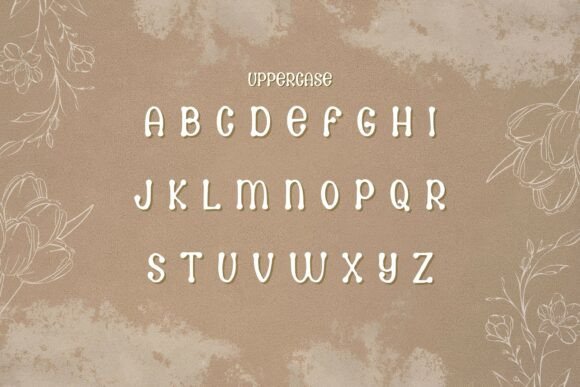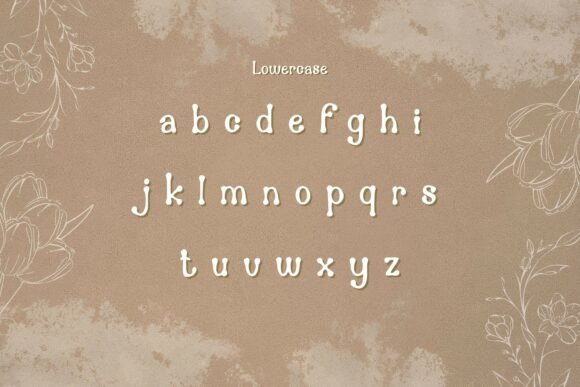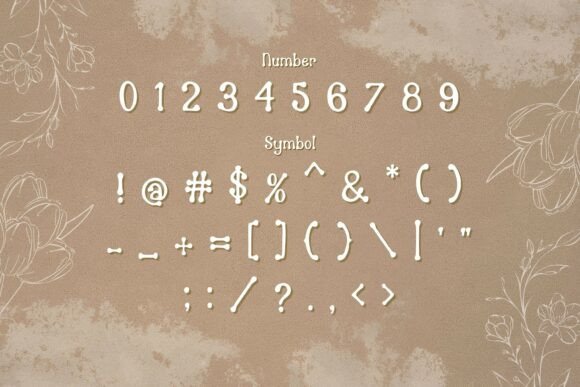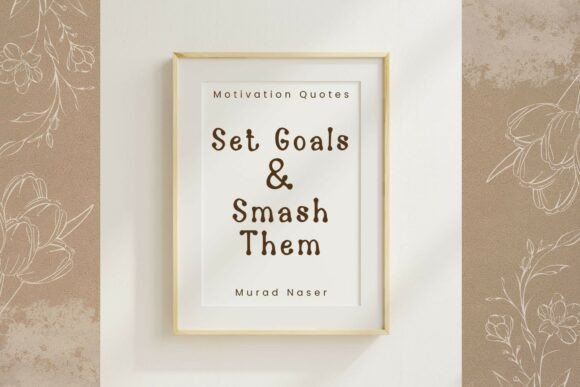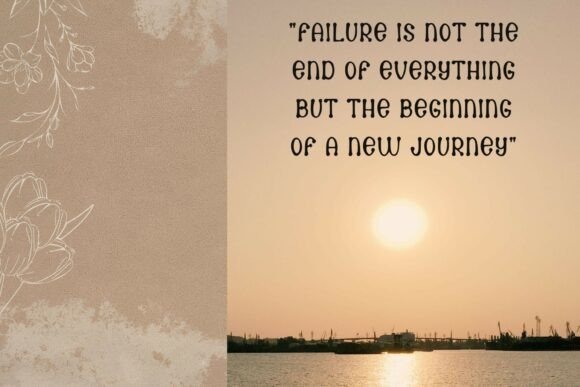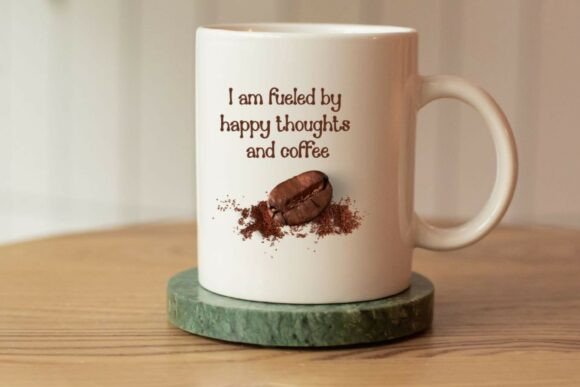
The Perfect Match for Your Creative Projects
Have you ever sat at your desk, staring at a blank canvas, waiting for the perfect font to bring your design to life? We’ve all been there. The blank page stares back, taunting us to make a move. But what if that perfect font was just a click away? Meet Antonika Font, the playful and minimal display font that’s about to become your new best friend.
Designed with creatives in mind, Antonika Font offers a wide range of characters and punctuation glyphs to support all your design needs. Whether you’re working on a traditional media project or a web design, this font is perfectly suited for the task. Its playfulness makes it a great choice for inspirational wall posters, brand communications, and more.
Antonika Font Key Features
- Font Family: Antonika comes in multiple font styles, including Antonika Regular, Antonika Italic, Antonika Bold, and Antonika Bold Italic.
- Unique Characteristics: Antonika features a unique blend of modern and vintage elements, with a distinctive feel that is both elegant and sophisticated.
- Language Support: Supports a wide range of languages, including Latin, Cyrillic, and Greek scripts, making it a versatile choice for global designs.
- Recommended Use: Ideal for use in headings, titles, and body text in various design applications, including print and digital media.
Review of Antonika Font
I recently had the chance to work with the Antonika font, and overall, I was quite pleased with the experience. ✨ Here are some things that worked well for me:
- Unique character: Antonika has a distinctive, hand-drawn feel that sets it apart from more common sans-serif fonts.
- Wide language support: The font includes a vast range of languages, making it a great choice for multilingual projects.
- Customizable: Antonika offers various styles and weights, allowing designers to fine-tune the look to suit their needs.
However, there are some limitations that might affect your decision to use Antonika. ⚠️ Here are a few things to keep in mind:
- Lack of boldness: While Antonika offers a range of weights, the bold style can feel a bit too light for some applications.
- Poor legibility at small sizes: The font’s intricate details can make it difficult to read at very small font sizes.
Overall, I’d say Antonika is a solid choice for projects that require a unique, hand-crafted feel. While it may not be the best fit for every project, it’s definitely worth considering for those looking to add a touch of elegance and sophistication.
The Antonika Font is a versatile font suitable for various design projects, including:
- Wedding invitations
- Branding materials (e.g. logos, business cards)
- Designs with a vintage or feminine touch